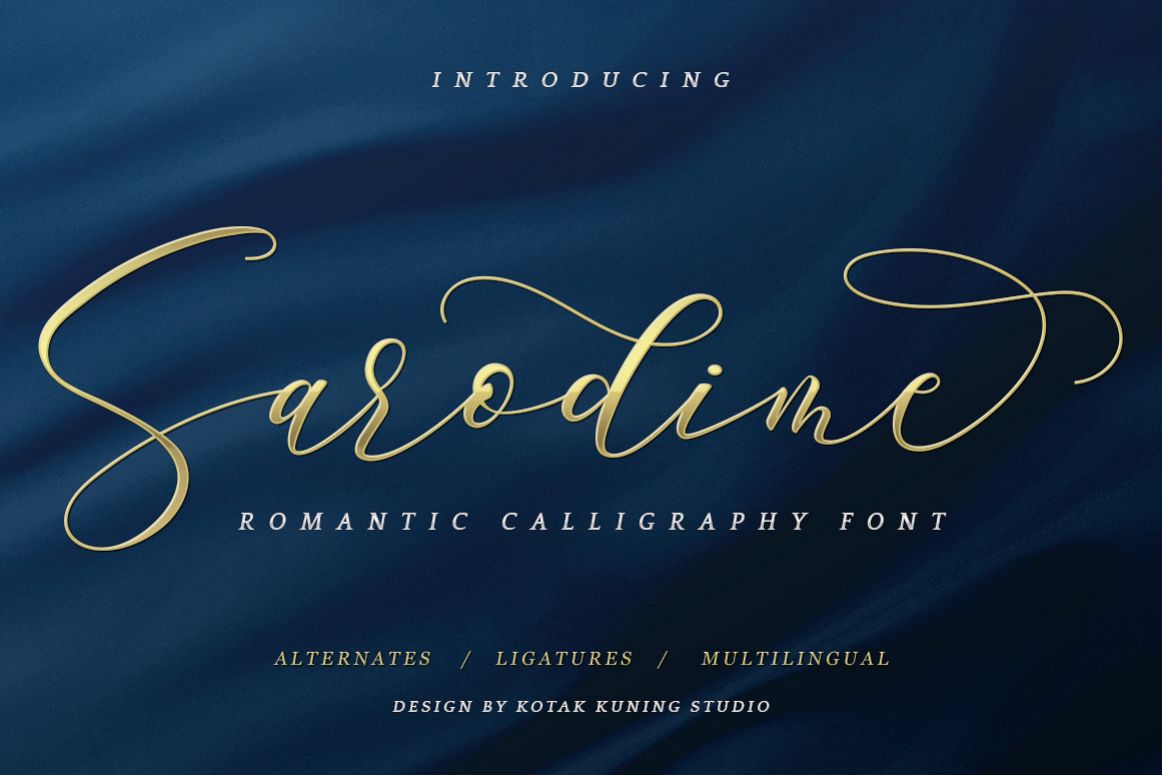
Romantic Script - Sarodime Font
Sarodime-Regular
Sarodime Script is a romantic calligraphy font with a natural & stylish flow. This collection of scripts is perfect for branding.
Sarodime Font is perfect for many different projects such as logos & branding, invitation, stationery, wedding designs, social media posts, advertisements, product packaging, product designs, label, photography, watermark, special events or anything.
• The ton of glyphs (include Uppercase, Lowercase, Numerals & Punctuations, Ligature, Alternate, and Swashes)
• Fonts include Multilingual Support for: Afrikaans, Albanian, Danish, Dutch, Estonian, Finnish, German, Icelandic, Italian, Norwegian, Portugese, Spanisch, Swedish, Zulu